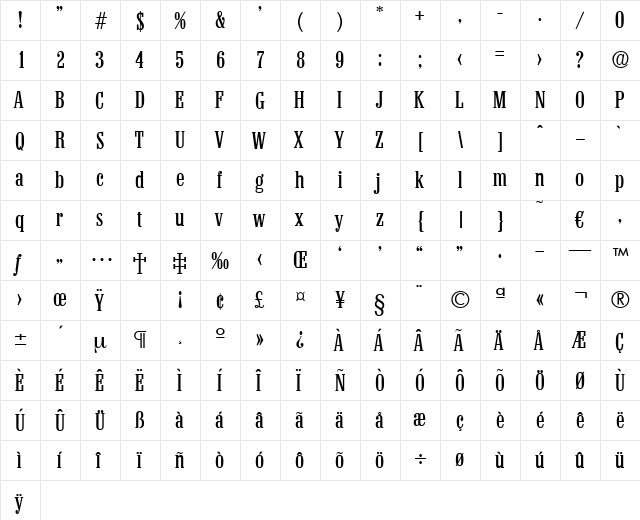
Colonel-Regular Regular
Design Context for Colonel-Regular Typeface
Colonel-Regular is a composed and adaptable typeface that performs quietly and consistently across a wide range of design contexts.